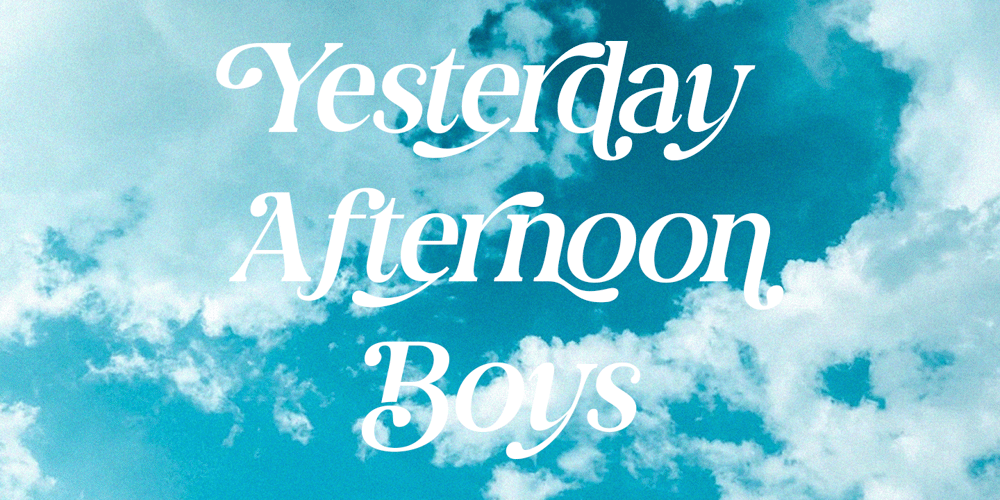
Ws Paradose Font Family was designed by Miftahul Habib and published by Wasabib Type Foundry. Ws Paradose contains 2 styles and family package options. An exceptional feature of WS Paradose Serif is its extensive set of alternates and ligatures. These additional glyphs provide a variety of stylistic options, allowing you to customize the appearance of your text to suit your specific design needs. Whether you’re seeking a more ornate and decorative look or a clean and minimalist approach, Classic Modern Serif’s alternates and ligatures provide the versatility to achieve your desired aesthetic.